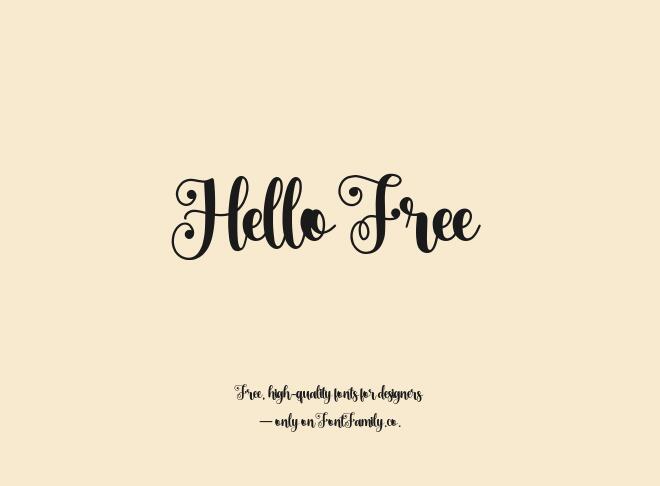
Hello Free Font
Introducing 'Hello Free Font', a modern script typeface perfect for those seeking a playful yet professional touch in their designs. This font, a brainchild of Creative Fonts, is characterized by its handwritten and modern attributes, making it an ideal choice for branding, logo designs, greeting cards, wedding stationery, and social media posts. Its fluidity and versatility make it comparable to popular fonts like 'Brush Script' and 'Lucida Handwriting', but with a more modern twist. The 'Hello Free Font', released in 2020, is available for personal use and is a must-have addition to every designer's font collection. Its unique charm and character will undoubtedly enhance your creative projects, making them stand out in the crowd.